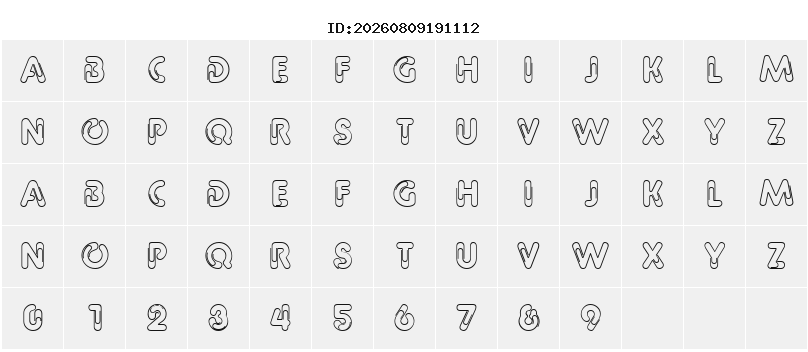
Paper Clips FC Preview
• Font Name: Paper Clips FC
• Full Font Name: Paper Clips FC
About Paper Clips FC.ttf
Paper Clips FC.ttf is a modern, elegant sans-serif font designed for ultimate readability and visual harmony. Perfect for branding, headlines, web design, and print materials.